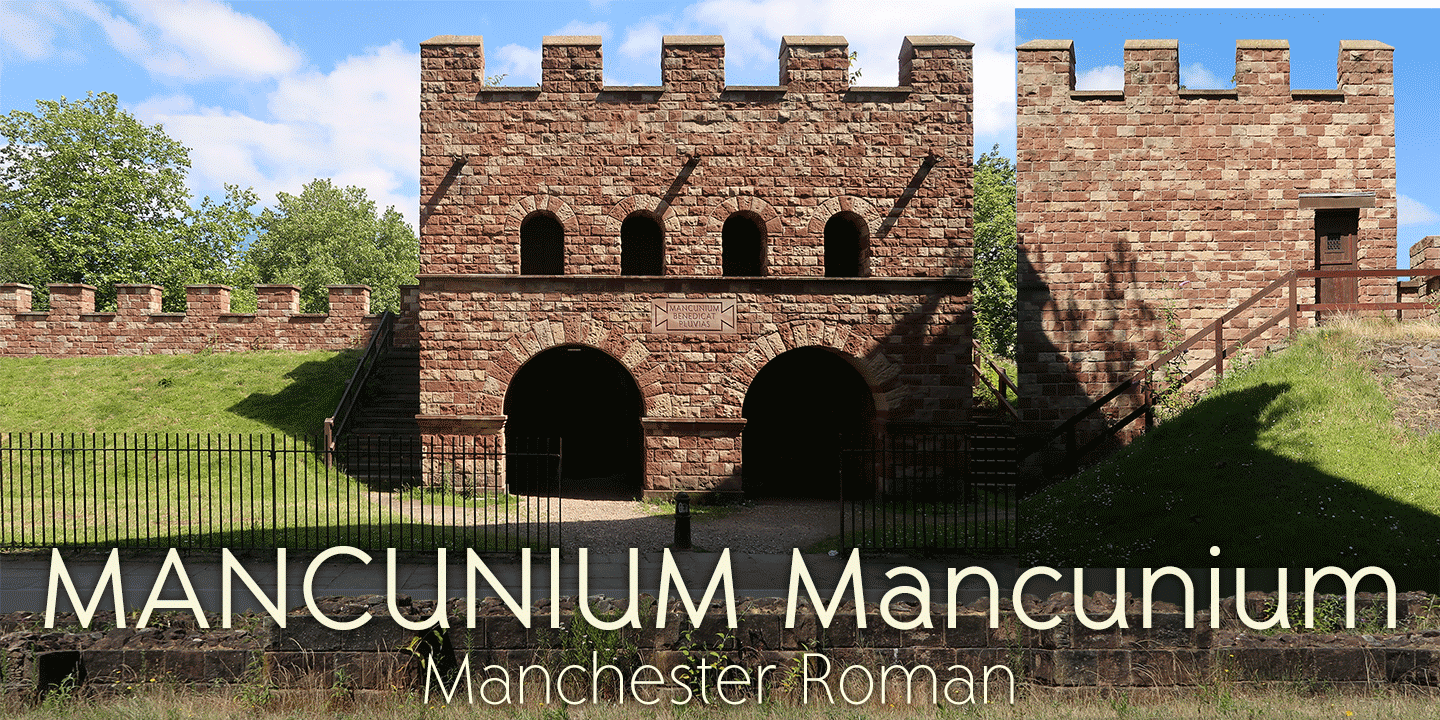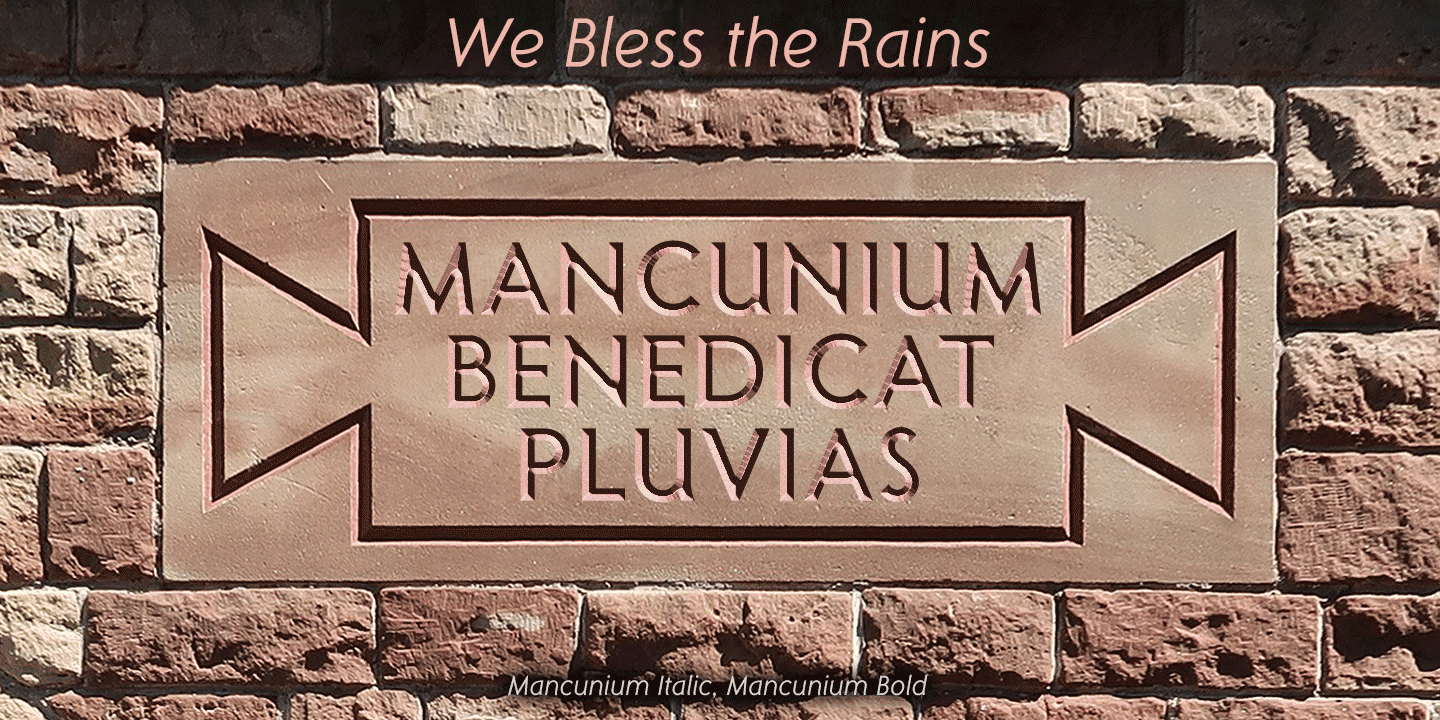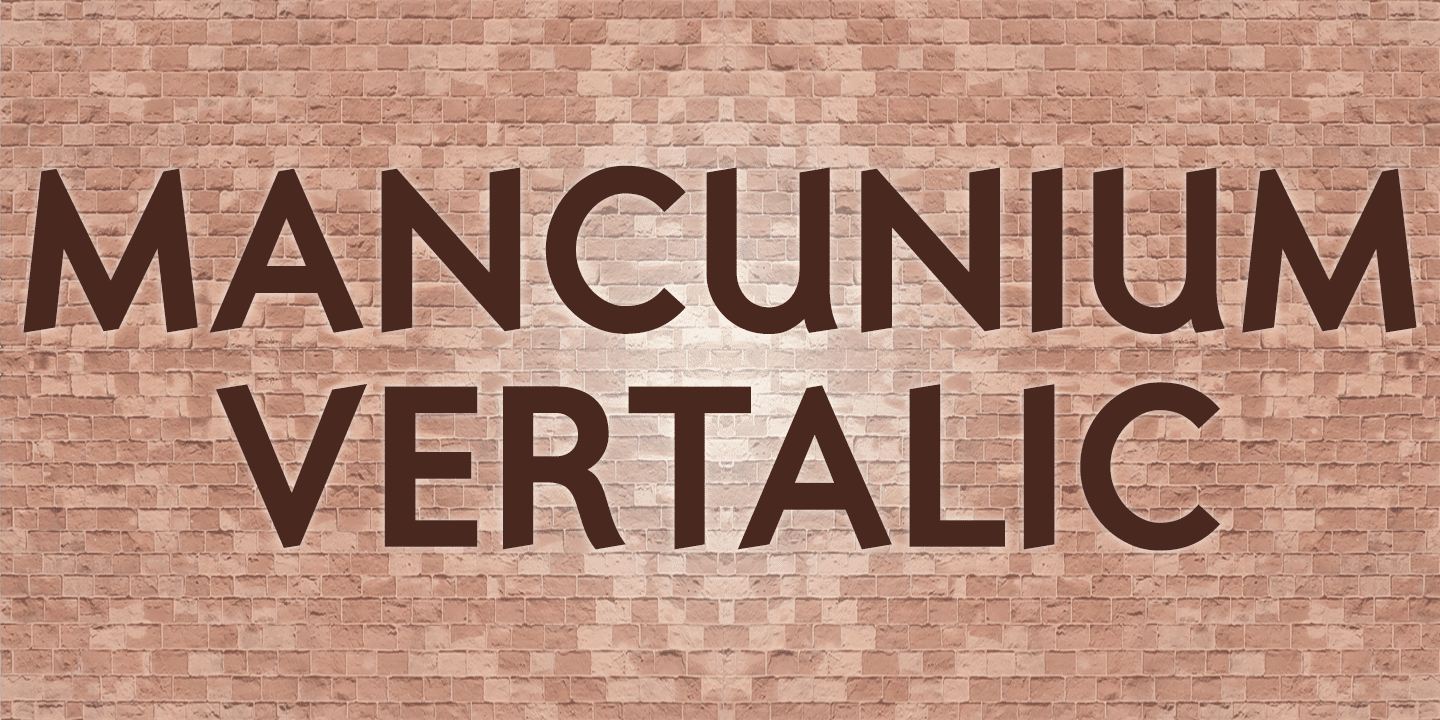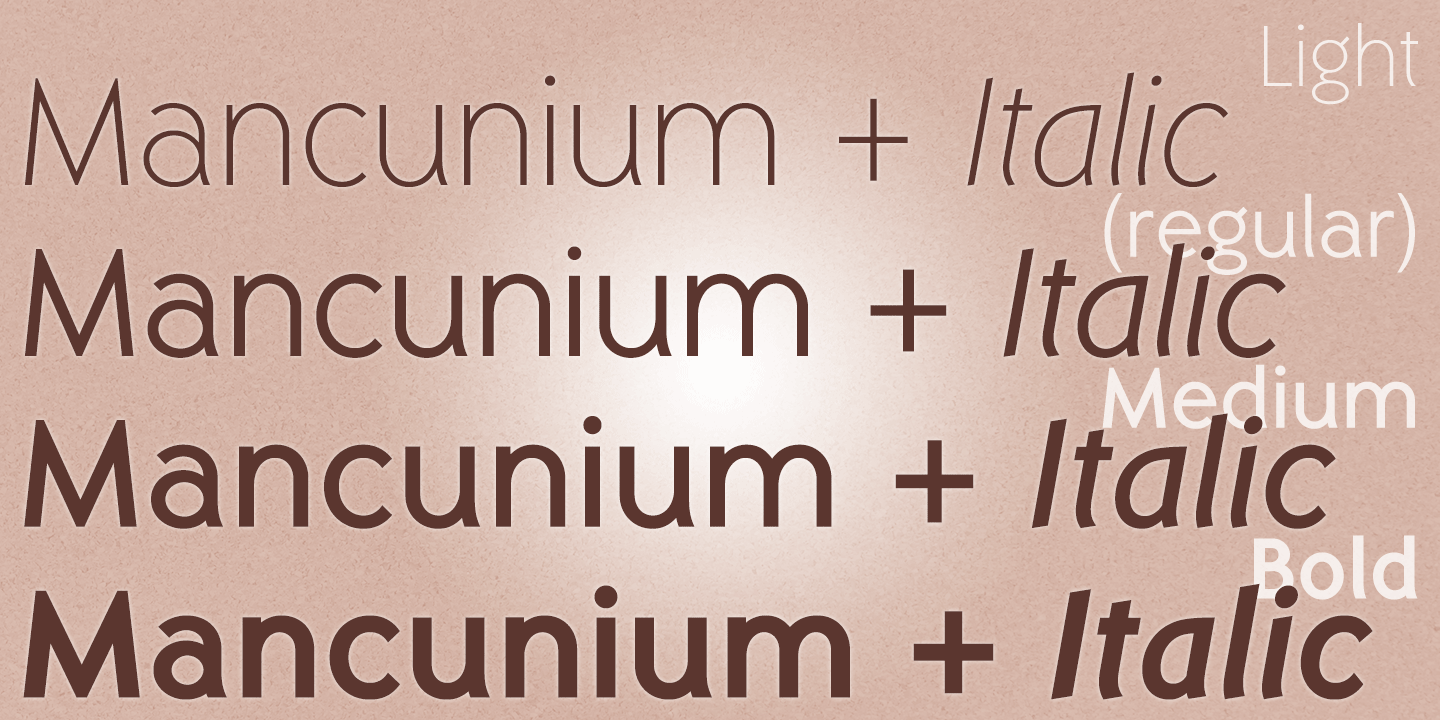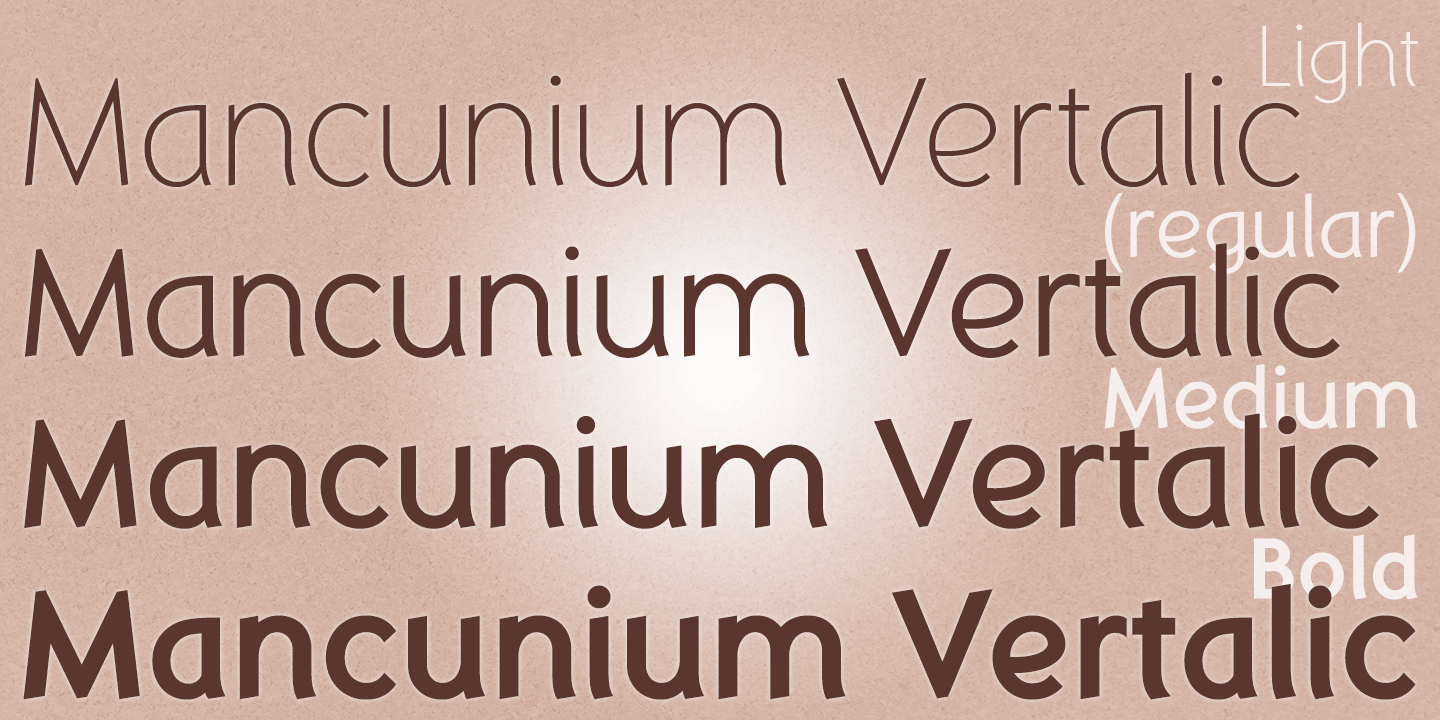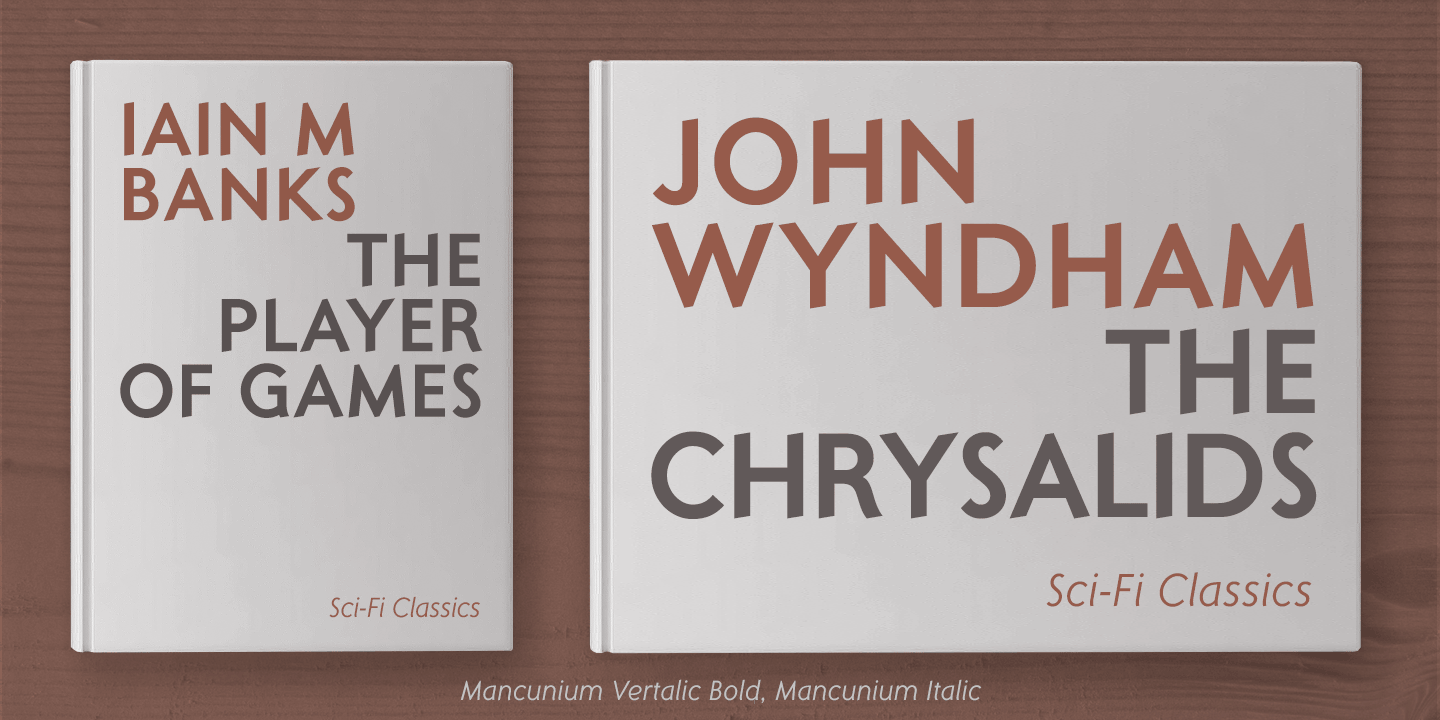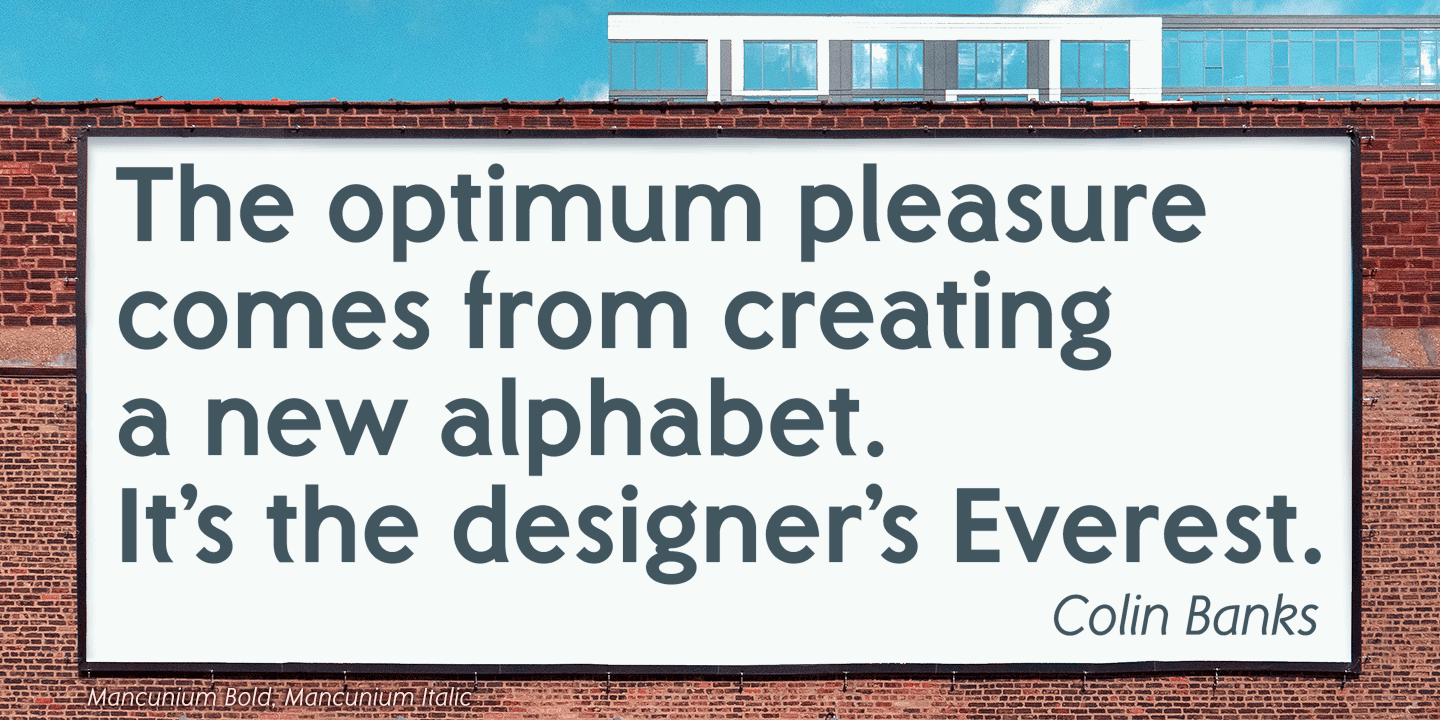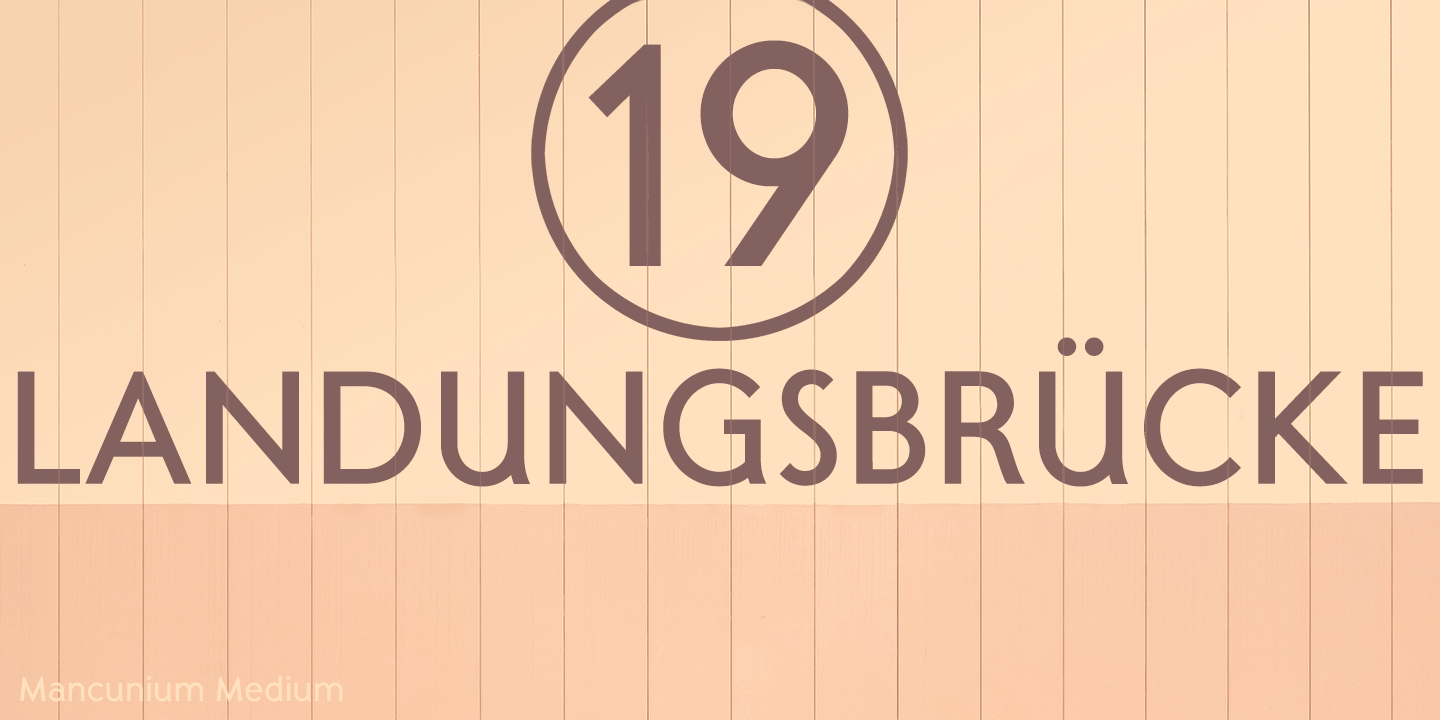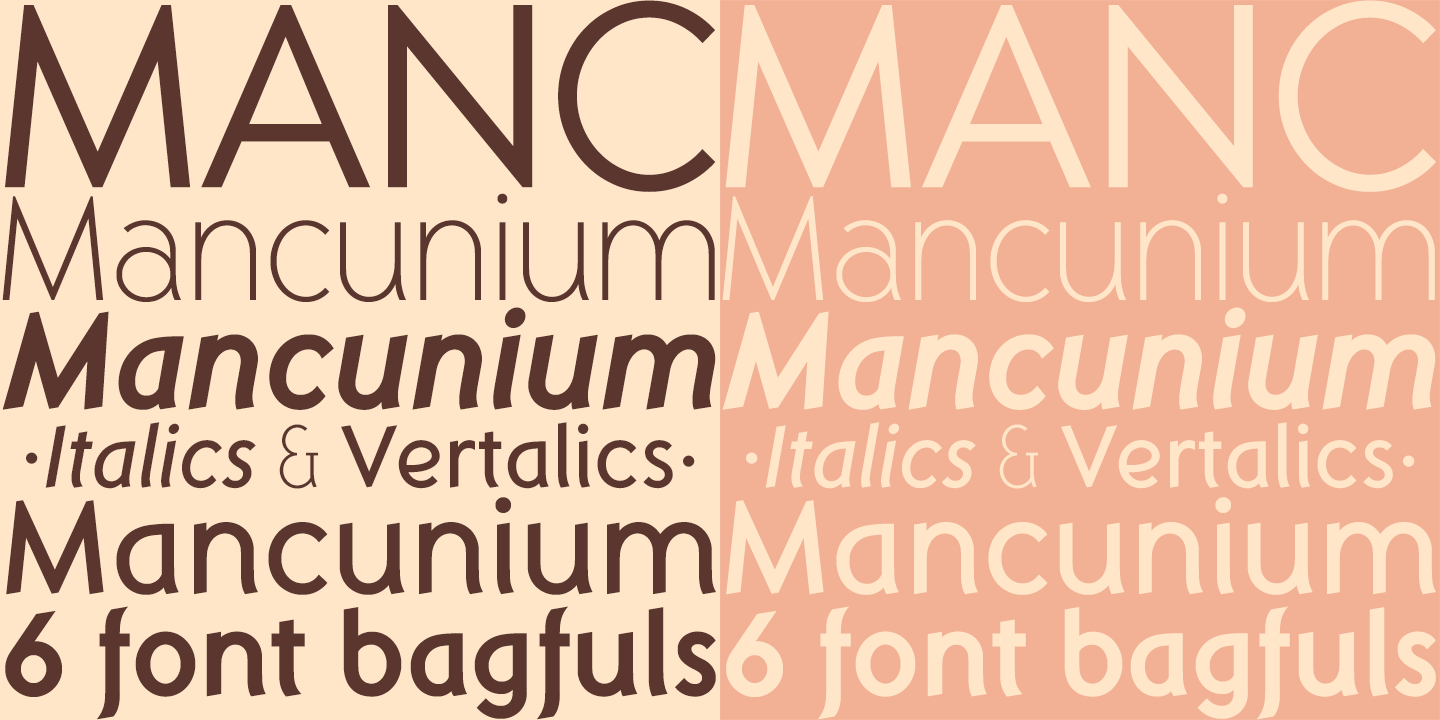
Mancunium Regular & Bold Collection
Font Family by K-Type
Mancunium is a sans serif family with a contemporary monolinear character, though designed with the iconic proportions of Roman capitals in mind.
In addition to reliable romans, the typeface includes proper, optically corrected italics. Also, uniquely, a set of 'vertalics? that contain the more scriptlike glyphs of the italics with angled stem terminals, but which are unslanted and upright in aspect, and without the slight narrowing of the italics.
Each font includes a full complement of Latin Extended-A characters and additional oldstyle numerals.